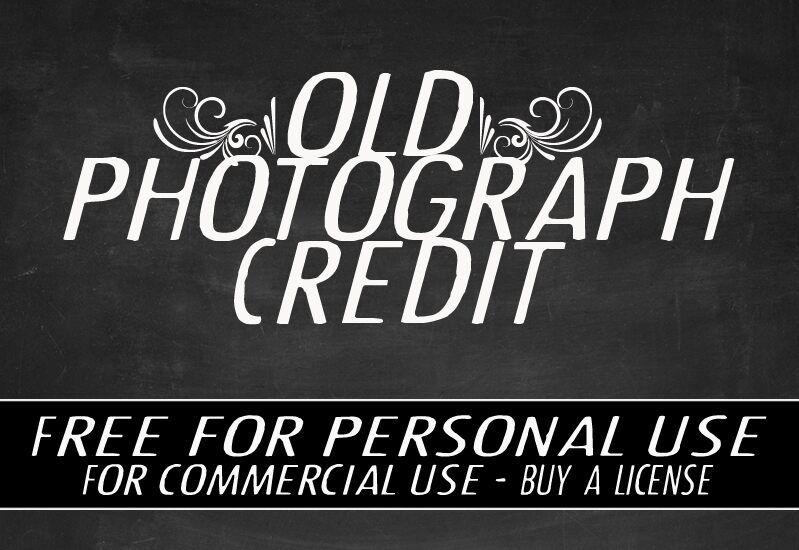
CF Old Photograph Credit by CloutierFontes is a free retro display font modeled on the tall, condensed lettering of old photo captions and production notes. Its lean, uneven strokes look quickly inked.
In publishing, it suits documentary captions and historical magazine features because the narrow letters recall archival labeling. Museum graphics and heritage event posters can use the same informal period reference without slipping into ornate nostalgia. The slight wavering of the strokes also connects the type with contact sheets, photographers' notes, and reproduced paper ephemera.
CF Old Photograph Credit Regular is a font by CloutierFontes, designed by Steve Cloutier in 2012.